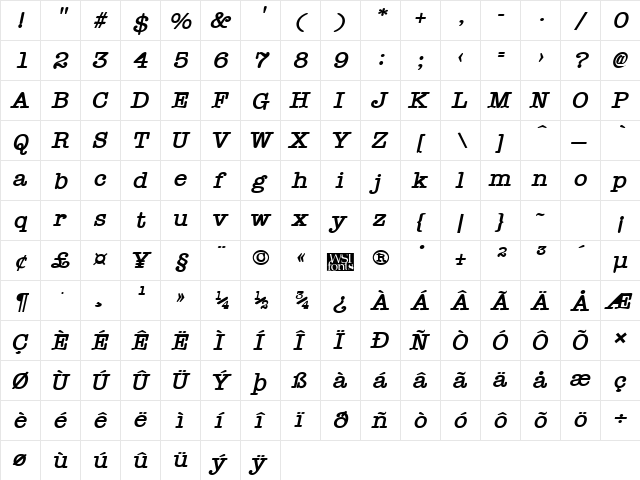
Typist Bold Italic
Design Context for Typist Typeface
Typist offers clean, dependable letterforms without strong stylistic allegiance, making it a practical choice for designers who need flexibility. Its italic angle brings a sense of urgency and motion to the letterforms. Its bold stroke weight gives it real presence on the page.